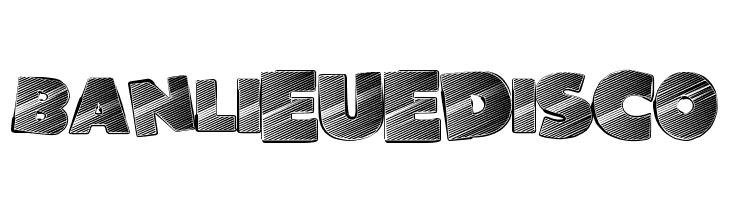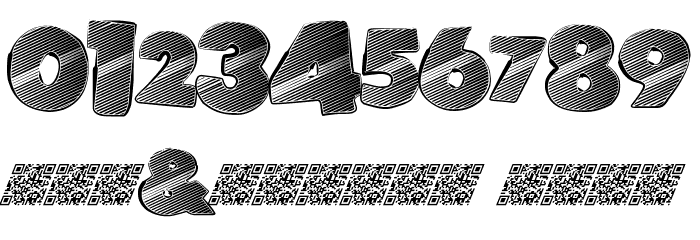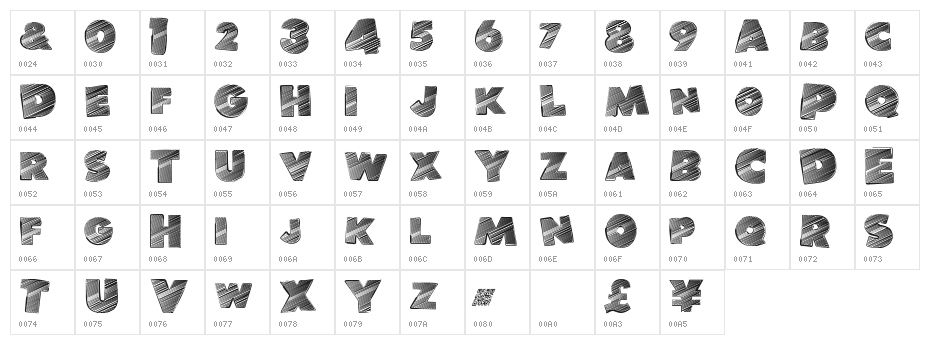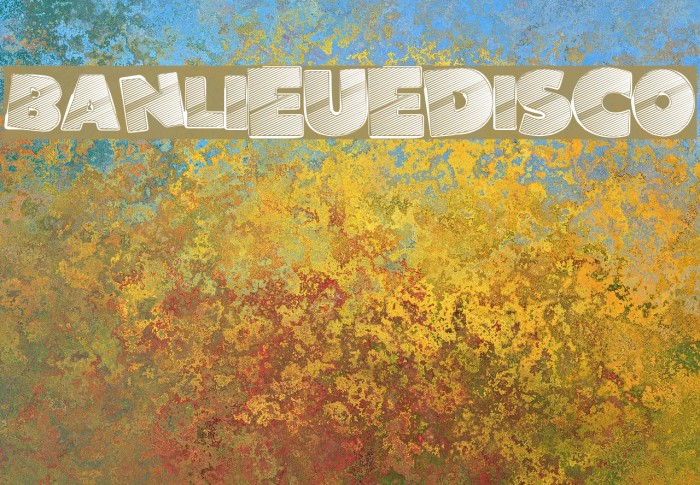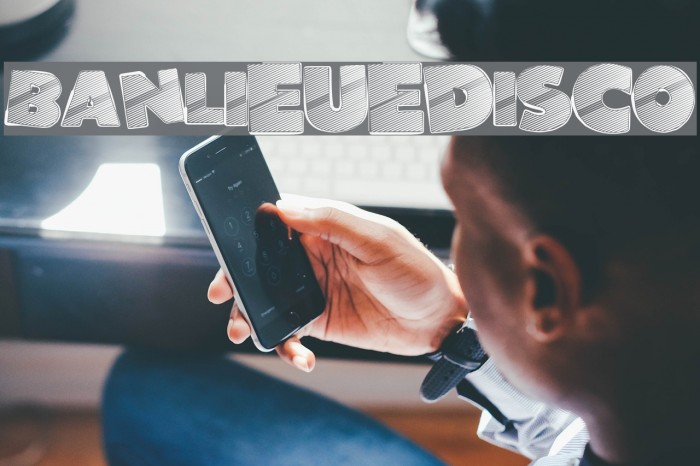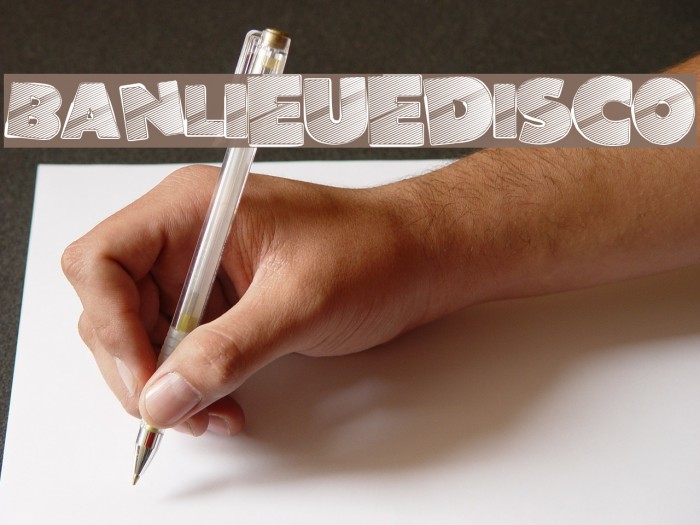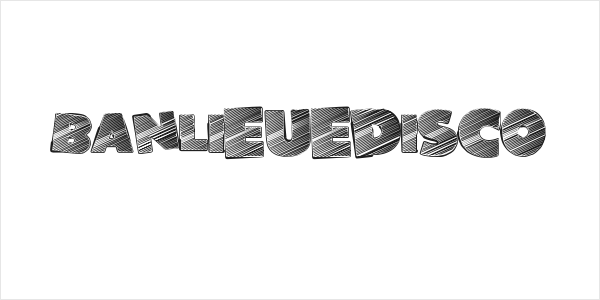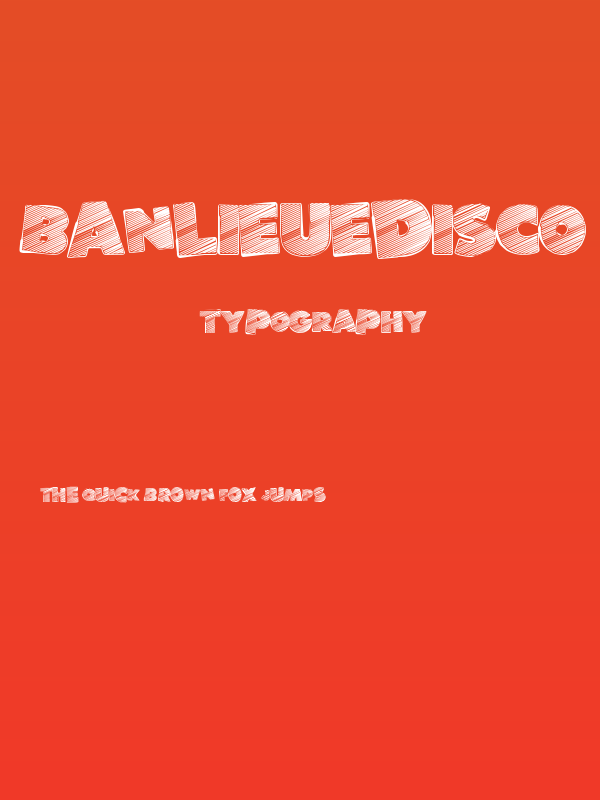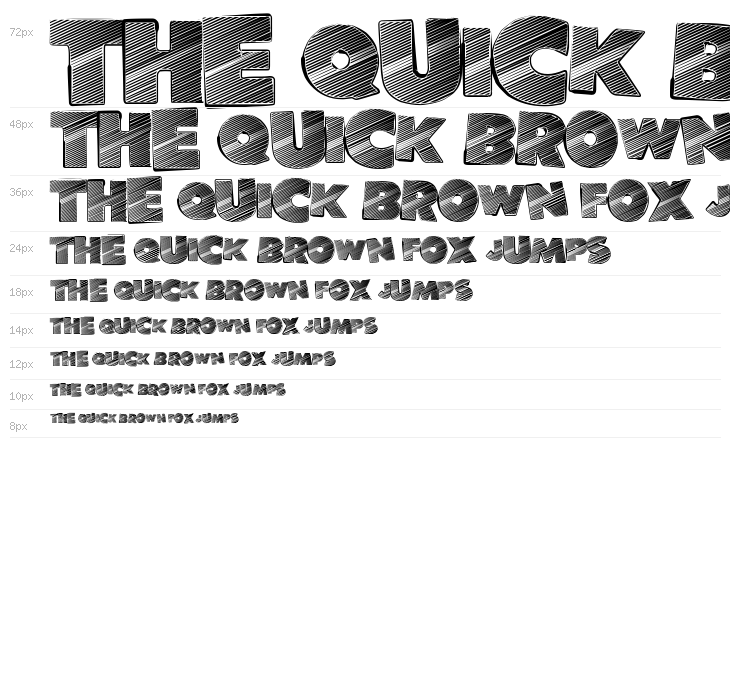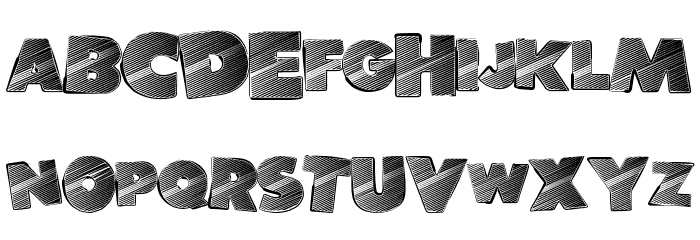
BanlieueDisco Font
This font features a bold, playful design with a distinct retro vibe. The characters are thick and rounded, with a unique pattern of diagonal lines running through each letter, giving them a textured appearance. The uppercase and lowercase letters maintain a consistent style, while the numbers and special characters follow suit, ensuring a cohesive look across all elements. The font's design is reminiscent of vintage disco aesthetics, making it ideal for projects that aim to capture a sense of fun and nostalgia. Its boldness ensures high visibility, making it suitable for eye-catching headlines or logos.
A bold, retro-inspired font with textured diagonal lines and a playful aesthetic.
• Proposed Projects: Ideal for retro-themed posters, party invitations, music album covers, and branding that seeks a vintage or playful look.
• Category: Decorative/Display
• Overall Style: Vintage
• Use Case: Headlines, Logos